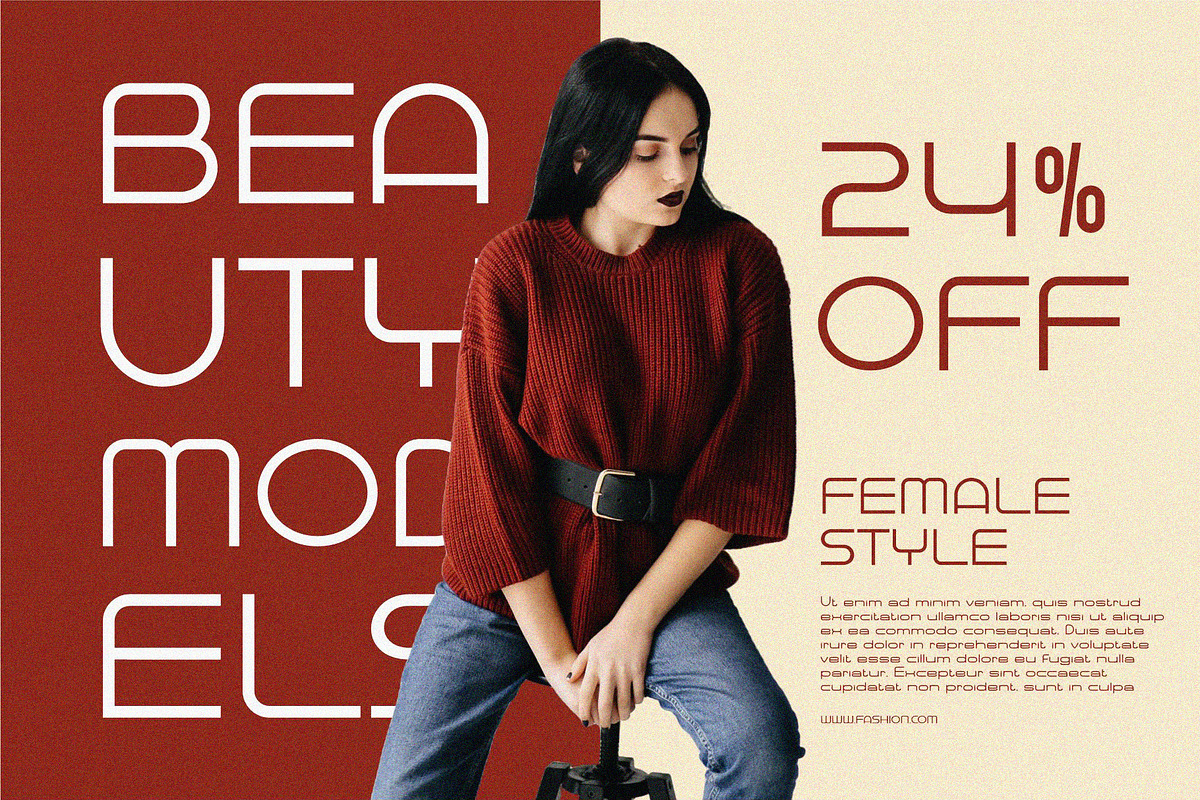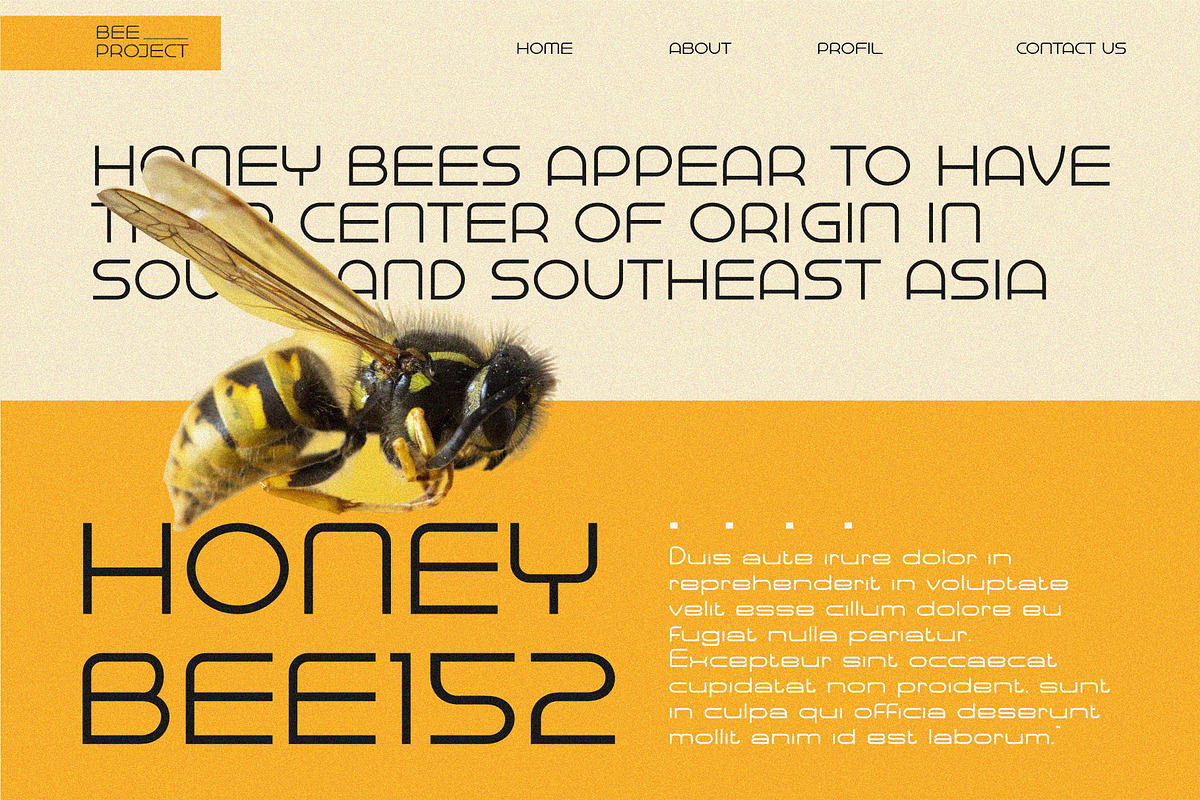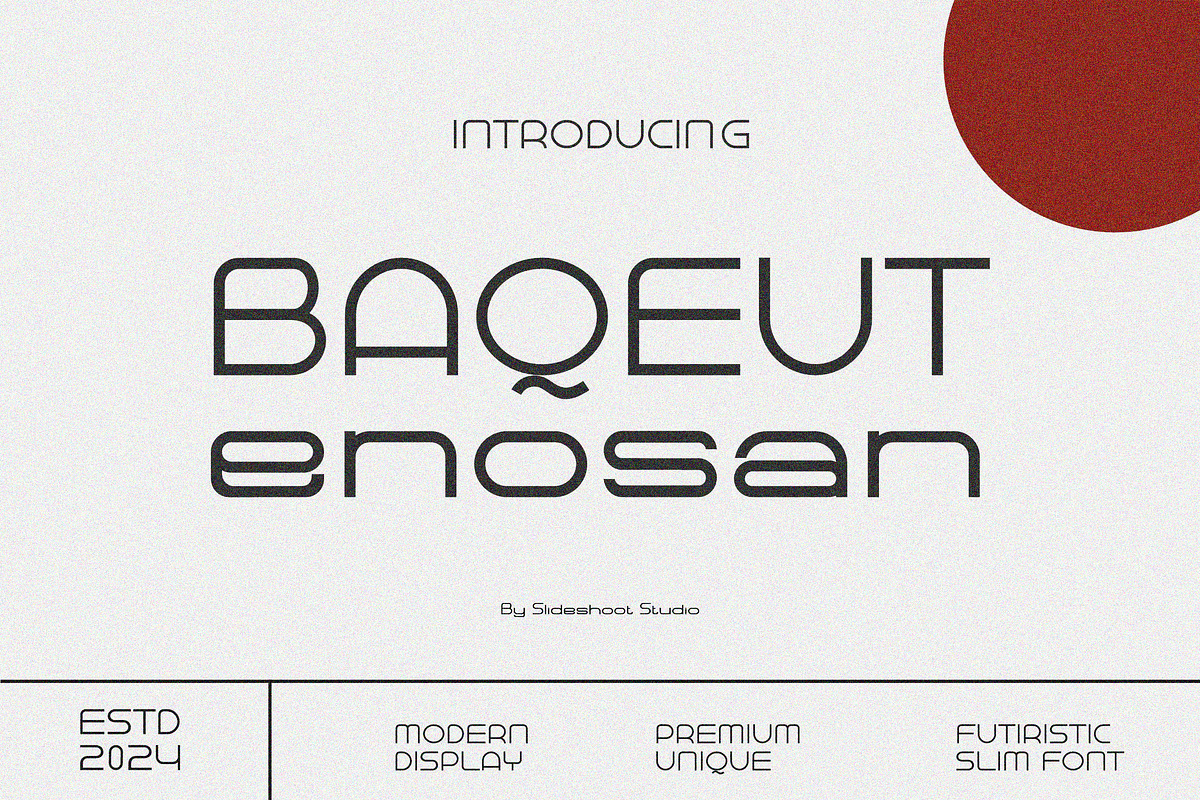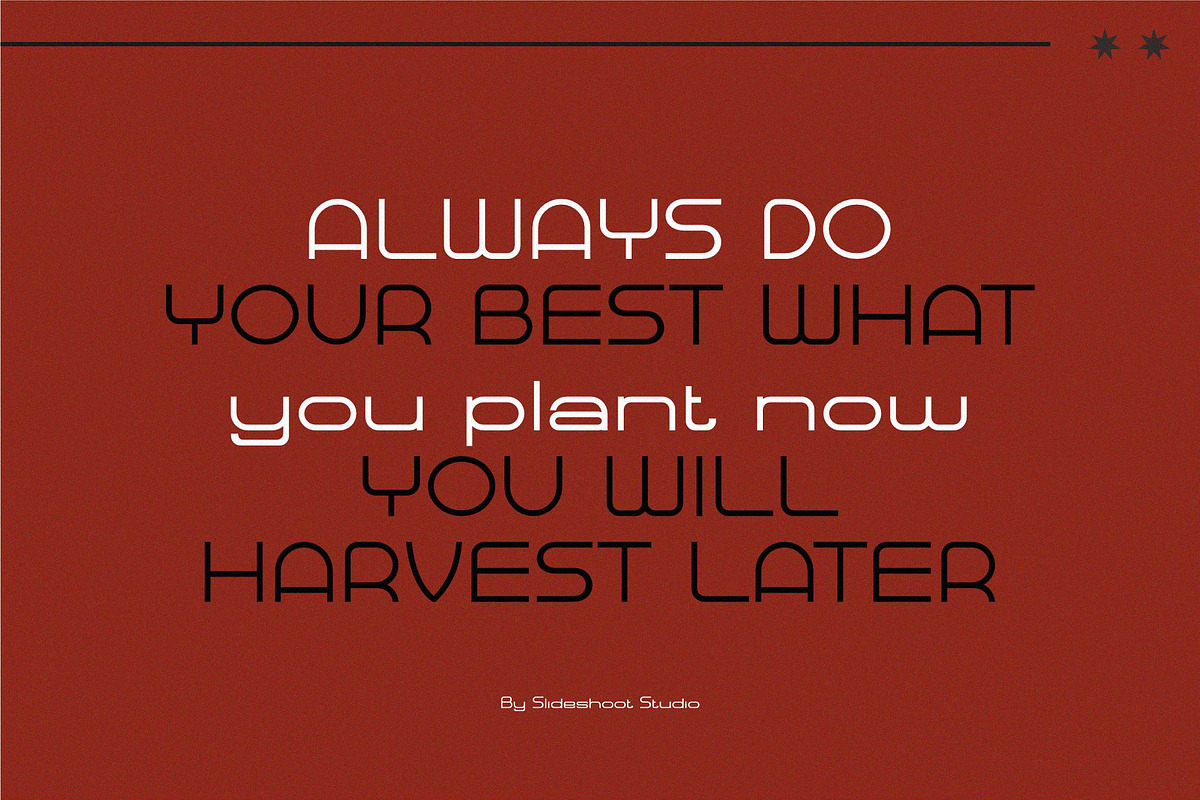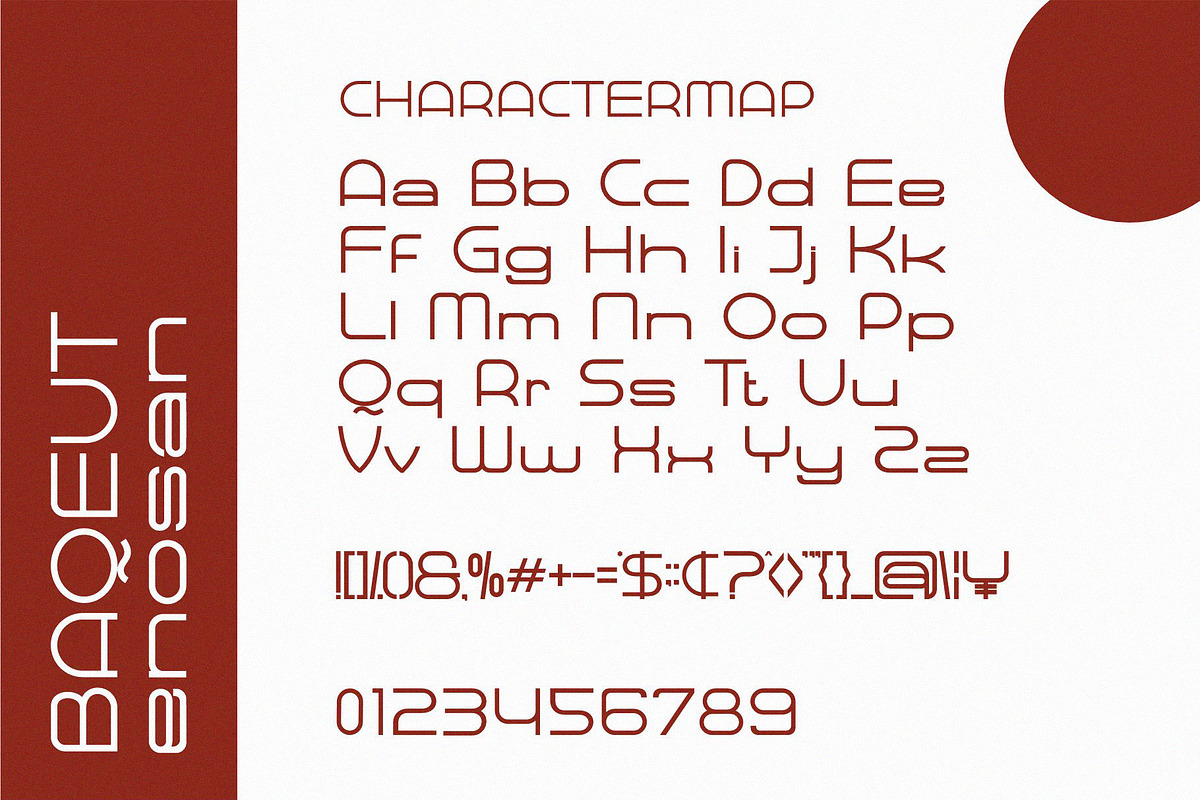
Baqeut Enosan|| Unique Display Font
Introducing Decides Baqeut enosan - An elegant modern sans serif with ton of stylistic alternates to choose. Its clean and minimalistic works wonderfully on its own for logos, headlines, posters, packaging and many more! And with Three different weights to choose, your option to create more unique and versatile design is a lot wider. Have fun and create more.. Your Imagination only your limit!!